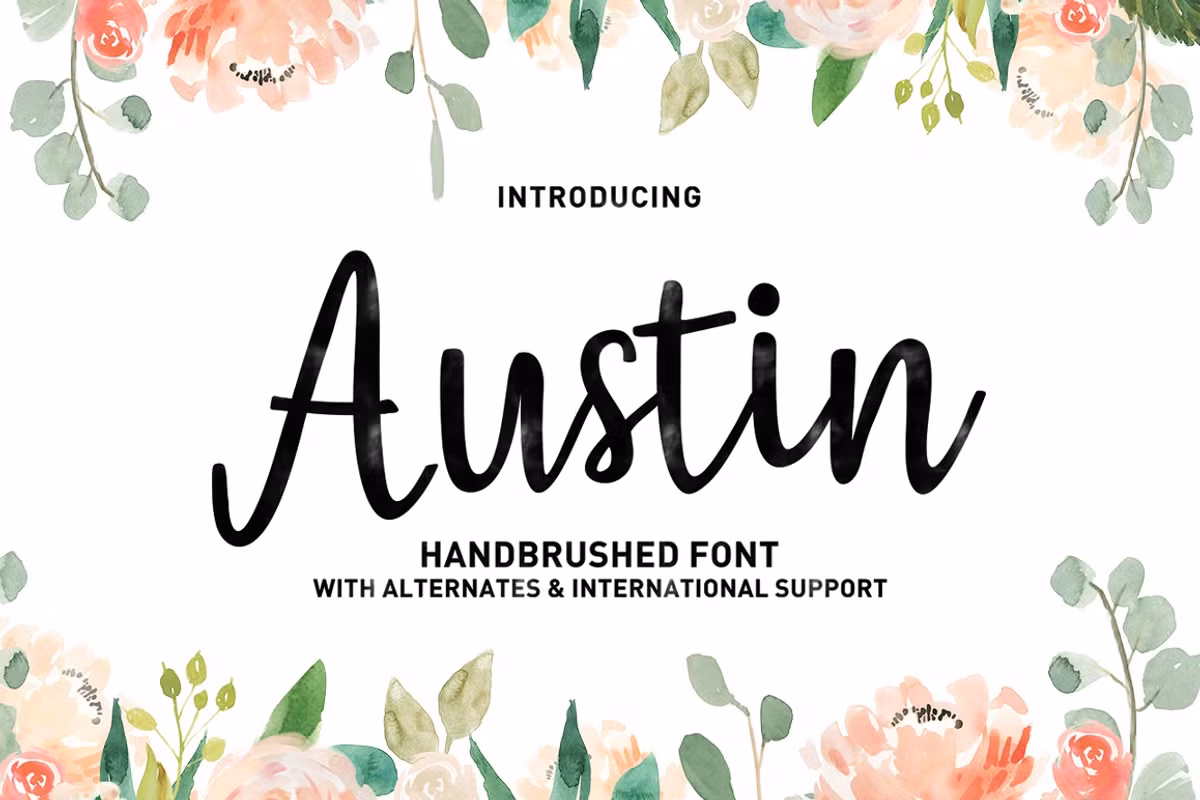
The Austin Script Font Free Download is a stylish and elegant script typeface designed to add a personal, handwritten touch to your designs. Featuring flowing, cursive letterforms and beautiful curves, this font is perfect for creating custom logos, invitations, branding, and more. Whether you're designing for a wedding, a creative brand, or a personal project, Austin Script brings a sophisticated, organic feel to your work.
Austin Script Font Free Download is ideal for designers looking for a refined yet personal script font. Perfect for elegant invitations, artistic branding, or creative projects, this font will elevate your designs with its chic, flowing style. Download it today and infuse your creative work with the beauty and elegance of Austin Script!